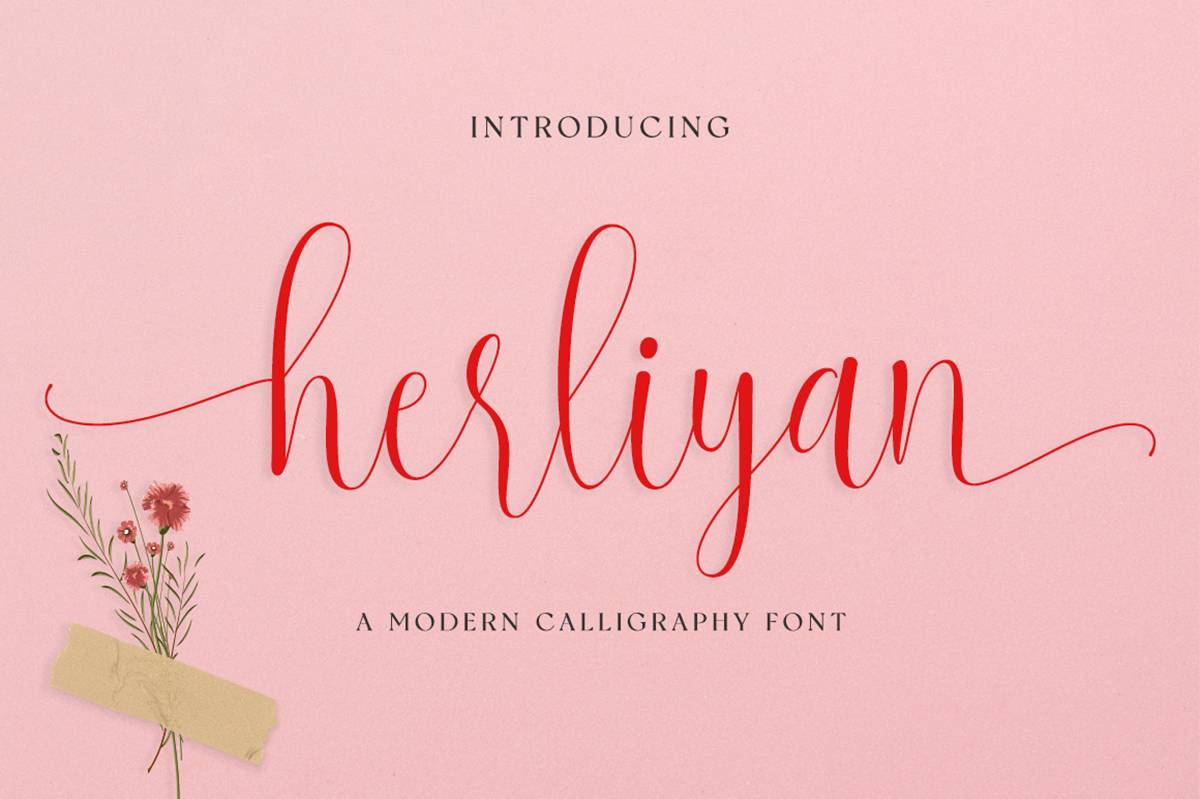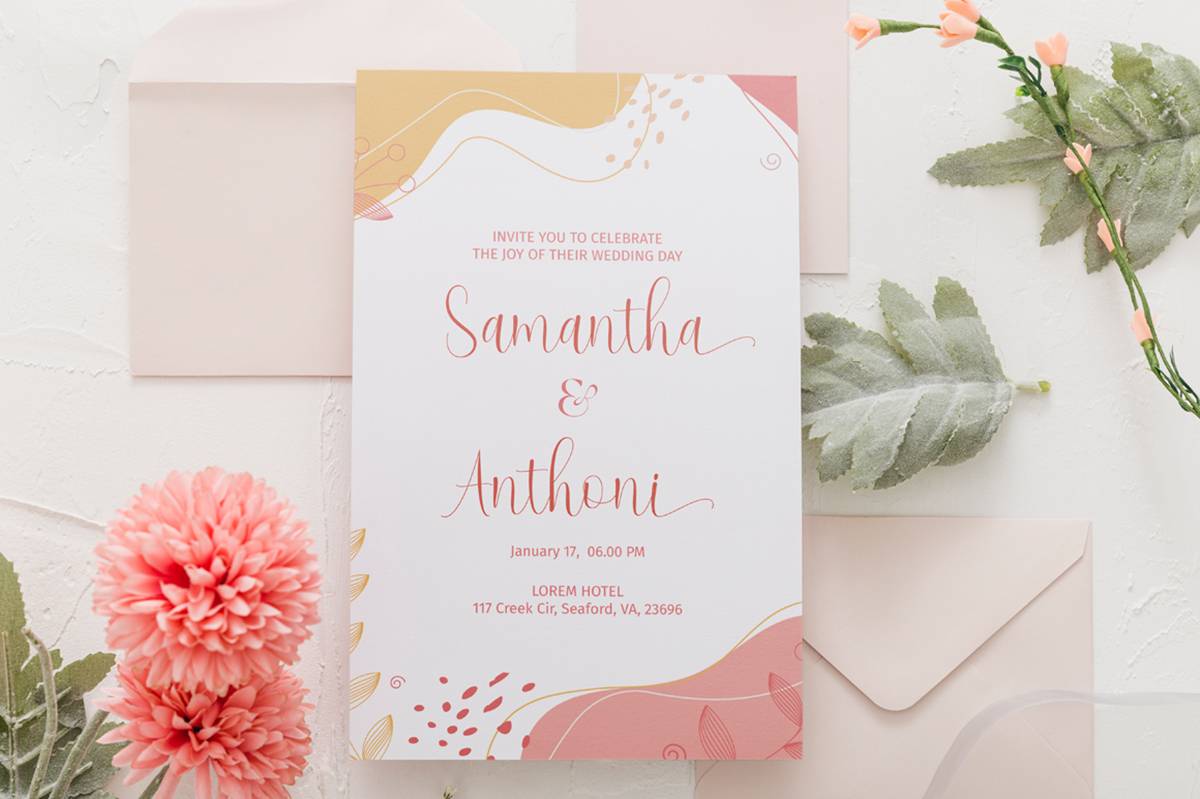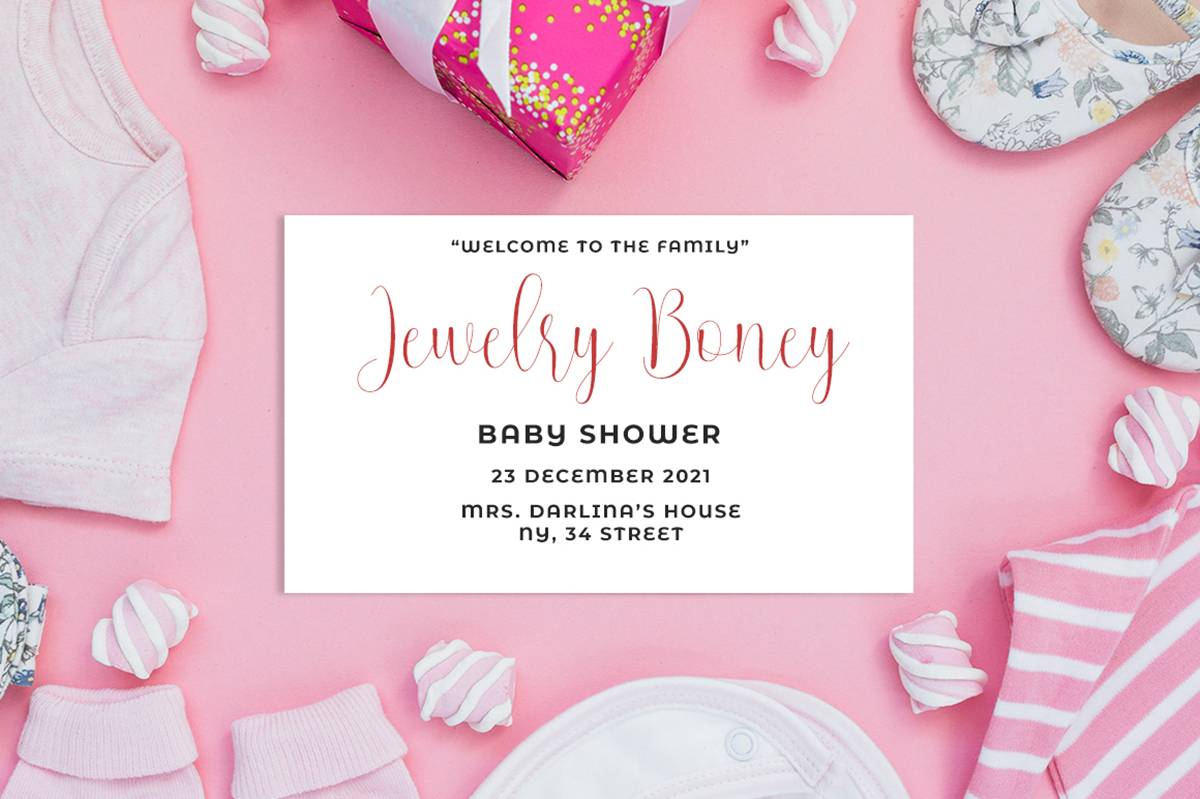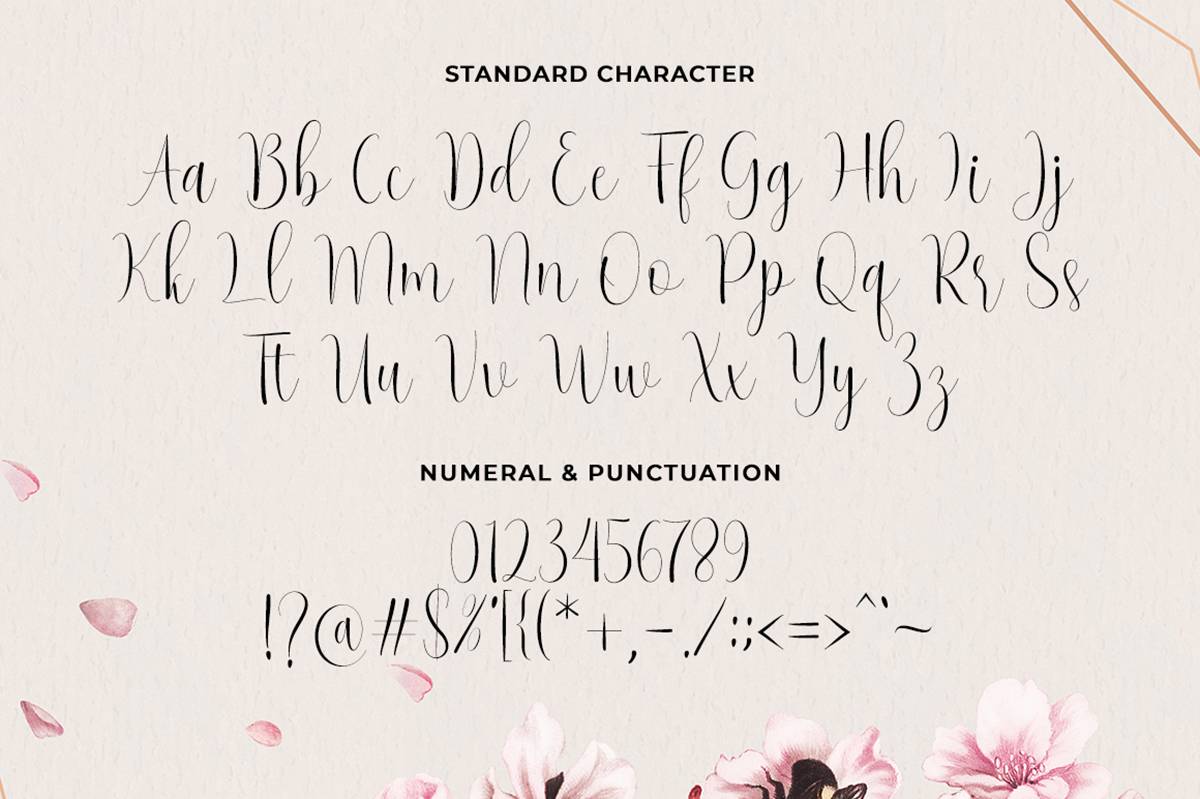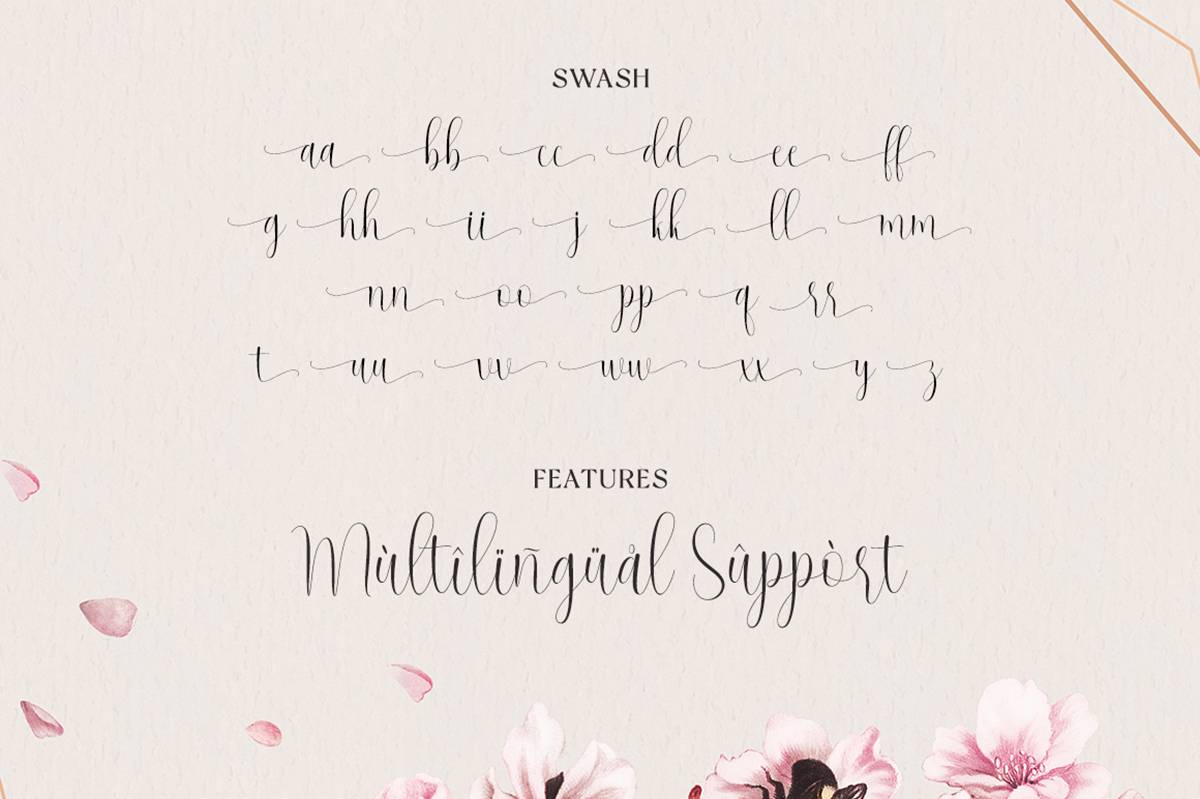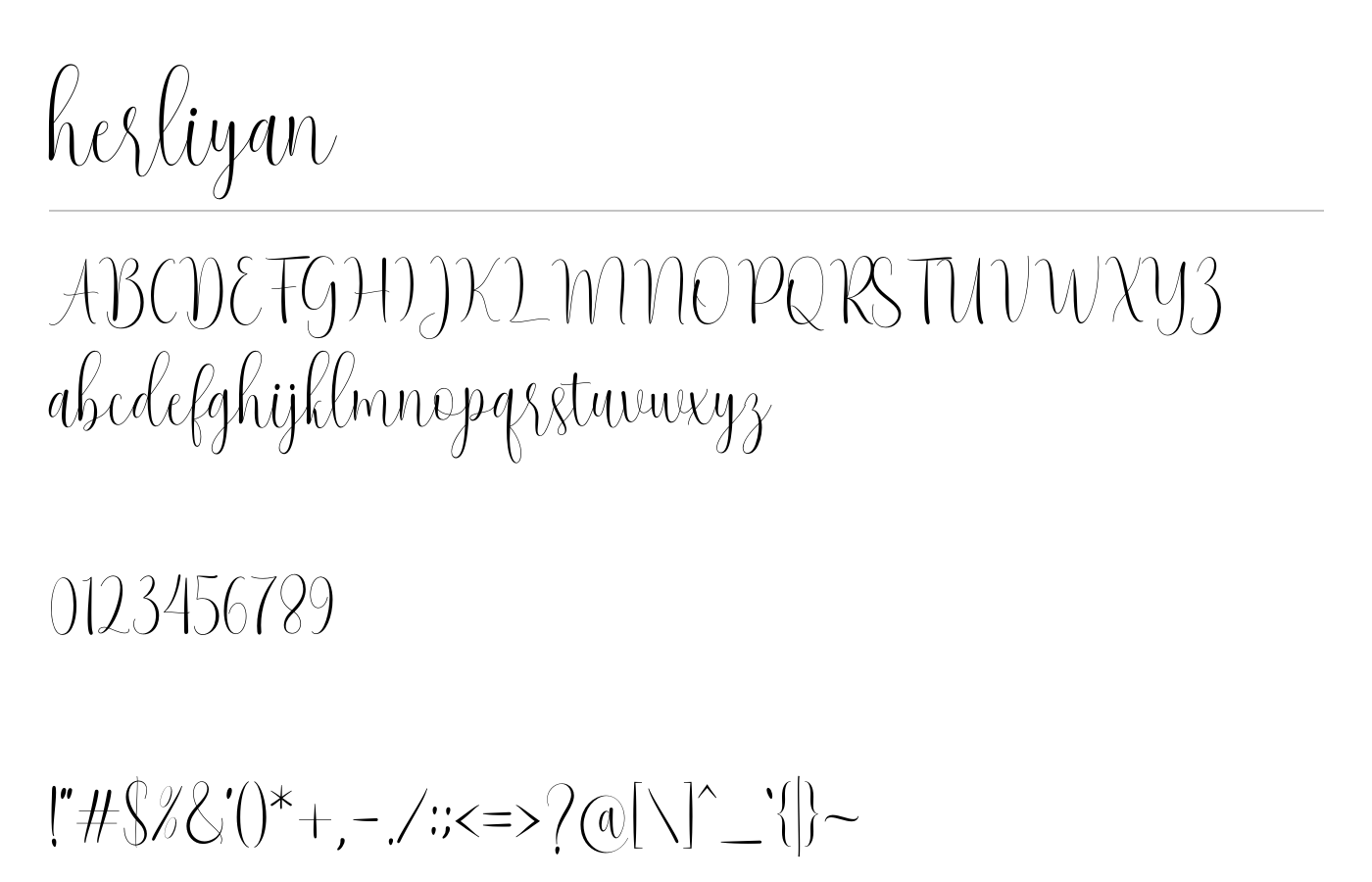
Herliyan is a delicate, handwritten script font characterized by its elegant, flowing lines and thin strokes that create a graceful and airy feel. Its tall, narrow letterforms and intricate curves make it ideal for sophisticated designs such as wedding invitations, luxury branding, and feminine editorial projects where a touch of refinement and charm is desired. The font works best in decorative uses and headlines, adding a personalized and artistic flair to any visual presentation.
Herliyan Font
About Herliyan Font
| Font family | Herliyan Font |